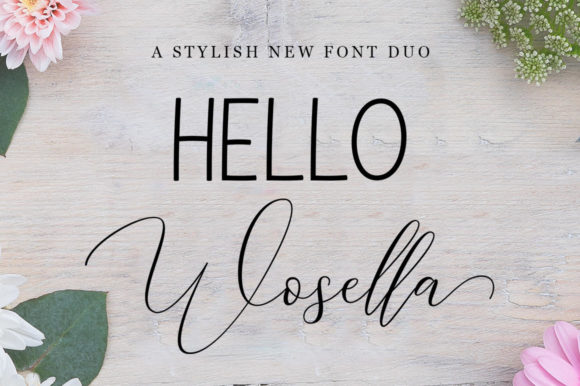
Wosella Duo Font
Indulge in the captivating realm of Wosella Duo, a remarkable font duo that will ignite your creativity and transform your designs into mesmerizing masterpieces.
Wosella's enchanting script dances across the page with effortless grace and undeniable charm. Its bold strokes and playful curves exude a vibrant energy, making it the perfect choice for captivating headlines, enchanting logos, and soulful invitations.
Unleash the power of Wosella Duo to:
* Embolden your headlines and make them leap off the page
* Create logos that radiate confidence and leave an unforgettable impression
* Craft invitations that whisper a promise of enchantment and joy
* Design social media posts that spark conversation and ignite engagement
* Give your brand a voice that speaks with elegance and passion
Wosella Duo is not just a font; it's a gateway to a world where your imagination takes flight. Embrace its versatility and let your creativity soar.